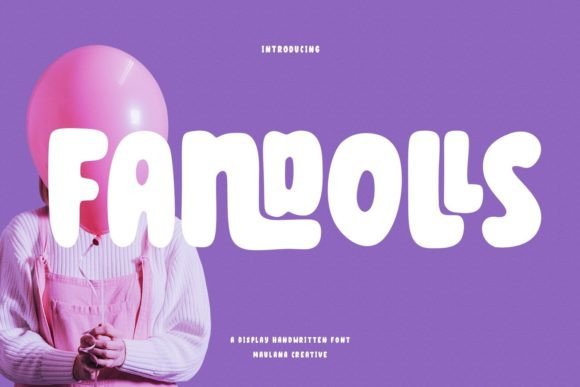
**Introducing Fandolls Font: The Ultimate Gateway to Unforgettable Designs**
In the vast digital realm, where first impressions reign supreme, your website serves as the gateway to captivating your audience. Fandolls Font, a playful and vibrant display font, empowers you to unlock the true potential of your online presence.
With its whimsical charm and infectious energy, Fandolls Font transforms your words into enchanting invitations that beckon your visitors to embark on an unforgettable journey. Picture the excitement of a party invitation adorned with Fandolls' playful curves, promising an unforgettable celebration. Or visualize the joy it brings to swimming gathering announcements, evoking the carefree spirit of summer days.
**Unleash Your Creativity with Endless Possibilities**
Fandolls Font is not merely a collection of letters; it's a boundless source of creativity. Whether you're crafting social media posts that demand attention or designing website headers that leave a lasting impression, Fandolls Font empowers you to express your unique style with flair. Its versatility knows no bounds, adapting seamlessly to a myriad of design aesthetics, from whimsical and carefree to bold and captivating.
**A Font That Speaks to the Heart**
In a digital landscape saturated with sameness, Fandolls Font stands out as a breath of fresh air. Its charming imperfections and playful nature evoke a sense of nostalgia and warmth, connecting with your audience on an emotional level. It's a font that speaks to the child within, reminding us of the joy and laughter that life has to offer.
**The Perfect Font for Your Modern Website**
In today's fast-paced digital world, your website is your calling card. Fandolls Font empowers you to create a website that exudes personality and charm, leaving a lasting impression on your visitors. Its modern aesthetic seamlessly complements contemporary website designs, adding a touch of whimsy and delight to your online presence.
**Why Choose Fandolls Font?**
* **Make a bold statement:** Capture attention with Fandolls' playful and energetic character.
* **Unleash your creativity:** Explore a world of possibilities with its boundless versatility.
* **Connect with your audience:** Evoke emotions and build connections with its charming imperfections.
* **Create a modern and unforgettable website:** Enhance your online presence with a font that reflects your unique style.